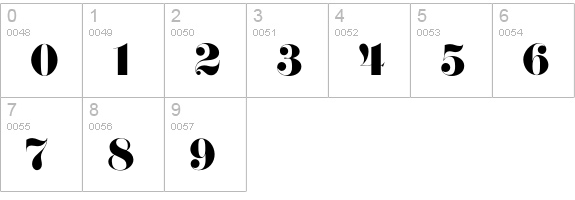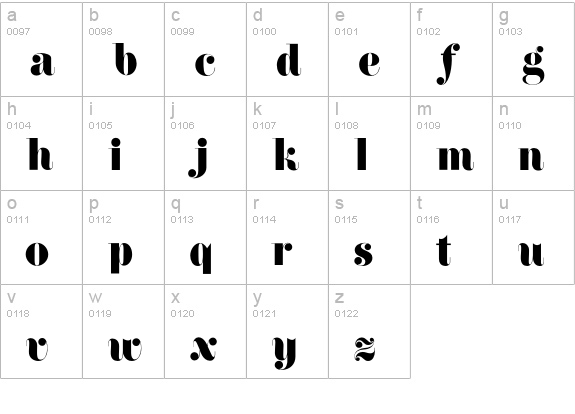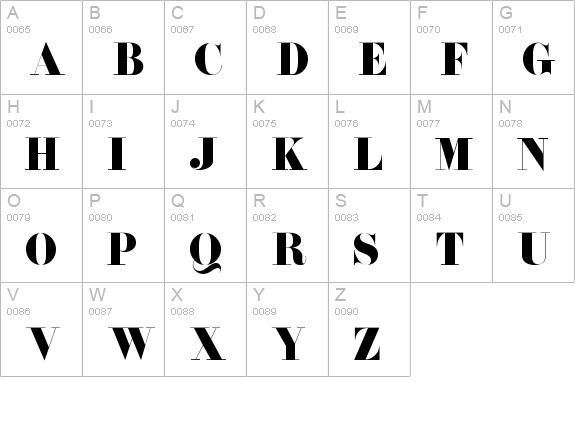
Firenze Font Details
Firenze font is a modern and elegant typeface that exudes sophistication and style. With its sleek lines and graceful curves, this font is perfect for adding a touch of class to any design project. Whether you're creating a wedding invitation, a logo, or a branding campaign, Firenze font will elevate your work to the next level. The best part? Firenze font is completely free to download at FontsMarket.com. That's right, you can access this beautiful typeface at no cost and use it in any personal or commercial project. So why wait? Give your designs a touch of luxury with Firenze font today!